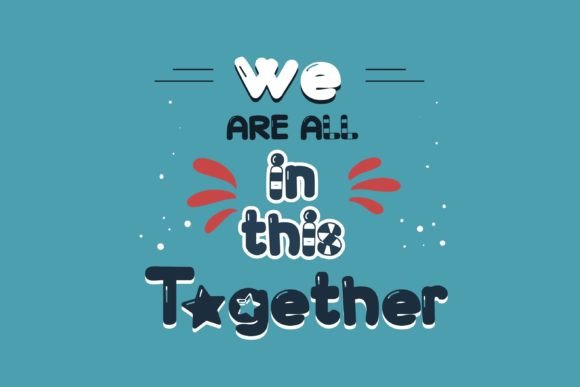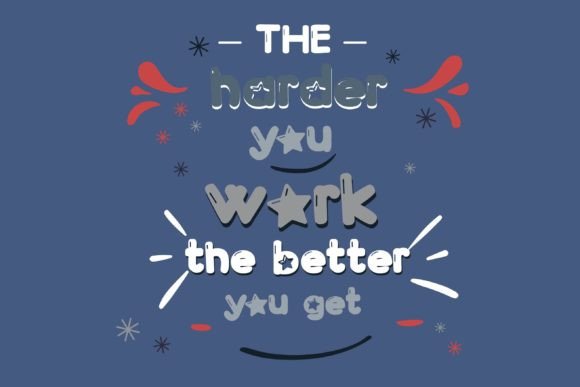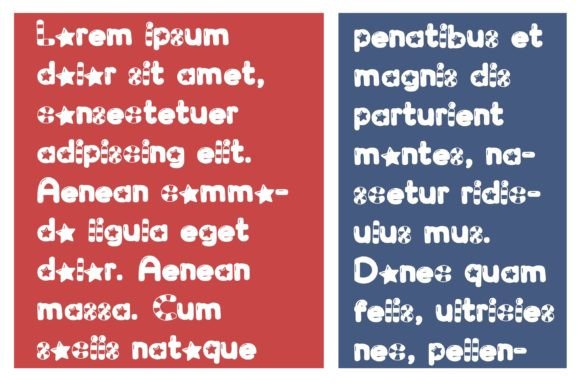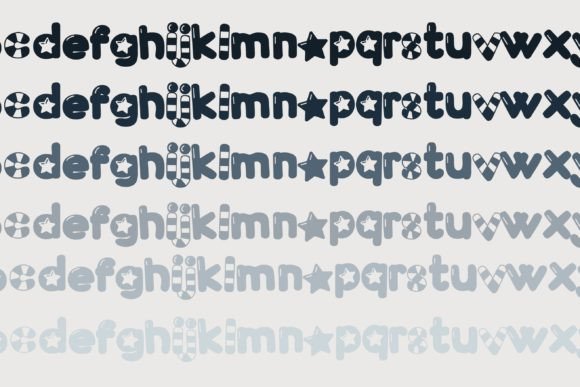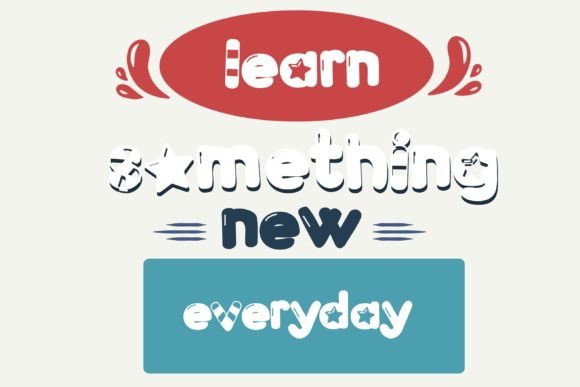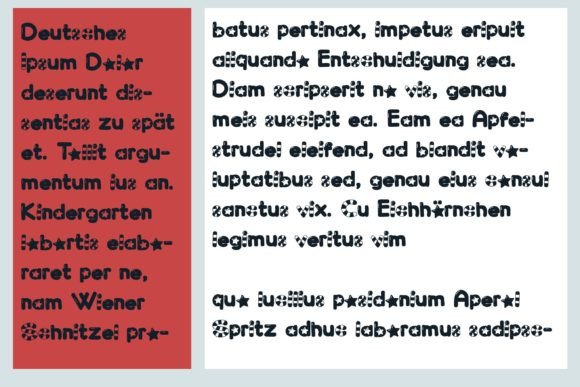
Introducing Fat Stars and Stripes Font: A Symbol of American Patriotism
In the world of typography, fonts play a crucial role in conveying emotions, tone, and style. For designers and crafters looking to infuse their projects with a sense of American patriotism, the Fat Stars and Stripes font is an exceptional choice. This chunky, hand-crafted font is inspired by the iconic stars and stripes, embodying the spirit of freedom and unity that defines the United States.
The Inspiration Behind Fat Stars and Stripes
The Fat Stars and Stripes font draws its inspiration from the American flag, a symbol of national pride and unity. The font’s design is a testament to the country’s rich history and its people’s resilience. Each letter is meticulously crafted to reflect the strength and courage that America represents. The result is a font that exudes confidence, freedom, and a sense of celebration.
Fat Stars and Stripes is characterized by its chunky, hand-crafted design. The font features bold lines, sturdy letterforms, and a distinctive texture that gives it a unique, homemade feel. The stars and stripes motif is cleverly integrated into each letter, creating a cohesive and recognizable style that is instantly associated with American patriotism.
Perfect for Patriotic Designs
Whether you’re working on a project for Independence Day, Memorial Day, or any other patriotic occasion, the Fat Stars and Stripes font is an excellent choice. Its striking design and bold appearance make it perfect for headlines, titles, and any other text that needs to stand out. The font’s versatility also makes it suitable for a wide range of applications, from posters and flyers to social media graphics and website headers.
Celebratory and Festive
The Fat Stars and Stripes font is not just limited to patriotic designs; it’s also ideal for any project that demands a celebratory tone. Whether you’re creating invitations for a birthday party, announcing a special promotion, or simply adding a touch of whimsy to your design, this font is sure to bring a smile to people’s faces. Its festive appearance and energetic vibe make it perfect for crafters and designers looking to add a playful twist to their projects.
American Pride in Every Letter
What sets the Fat Stars and Stripes font apart is its attention to detail and commitment to representing American pride. Each letter is carefully crafted to showcase the country’s spirit, from the bold and sturdy letterforms to the intricate stars and stripes details. This font is not just a typographic choice; it’s a statement of patriotism and a celebration of American values.
Tips for Using Fat Stars and Stripes
To get the most out of the Fat Stars and Stripes font, consider the following tips:
- Use it for headlines and titles to add a bold and patriotic touch to your design.
- Pair it with complementary fonts to create a harmonious and visually appealing combination.
- Experiment with different colors, such as red, white, and blue, to amplify the patriotic theme.
- Don’t be afraid to add textures and effects to enhance the font’s chunky, hand-crafted appearance.
The Fat Stars and Stripes font is a unique and powerful typographic choice for designers and crafters looking to infuse their projects with American patriotism. Its chunky, hand-crafted design and bold appearance make it perfect for a wide range of applications, from patriotic designs to celebratory occasions. With its attention to detail and commitment to representing American pride, this font is sure to become a staple in any designer’s toolkit.